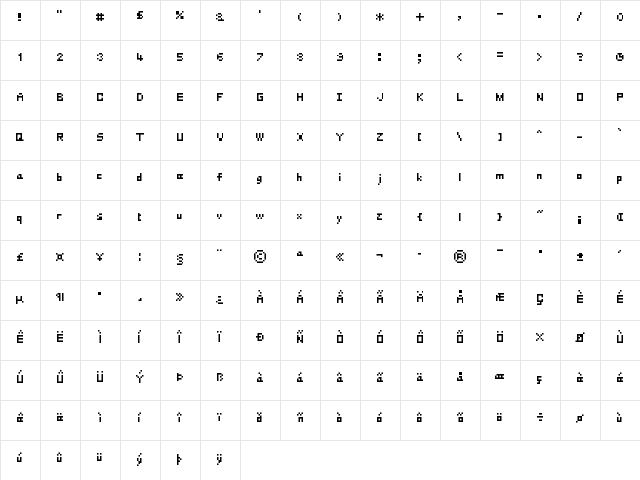
Louis-Alexandre Regular
| Designer | ichii39 |
Design Context for Louis-Alexandre Typeface
Louis-Alexandre is a composed and adaptable typeface that performs quietly and consistently across a wide range of design contexts.